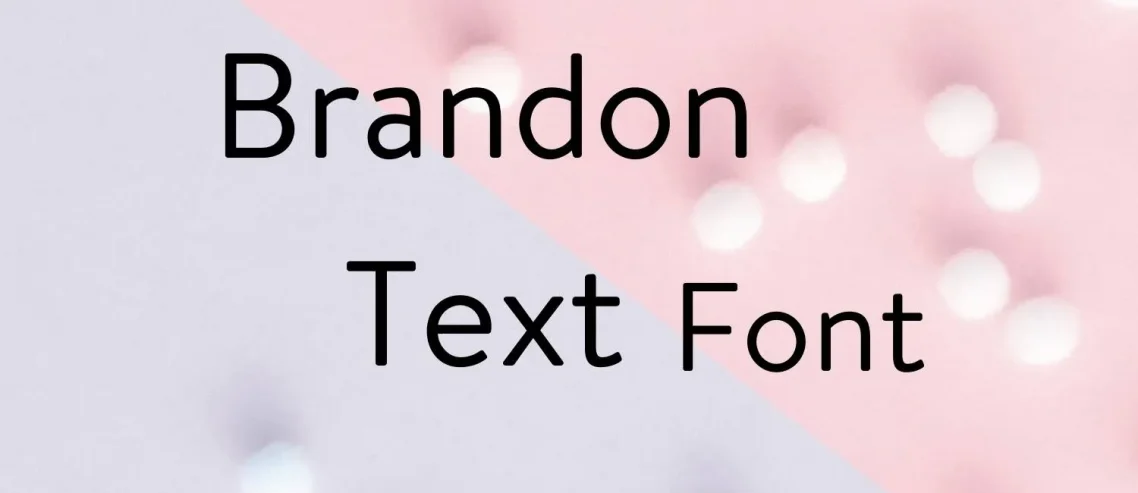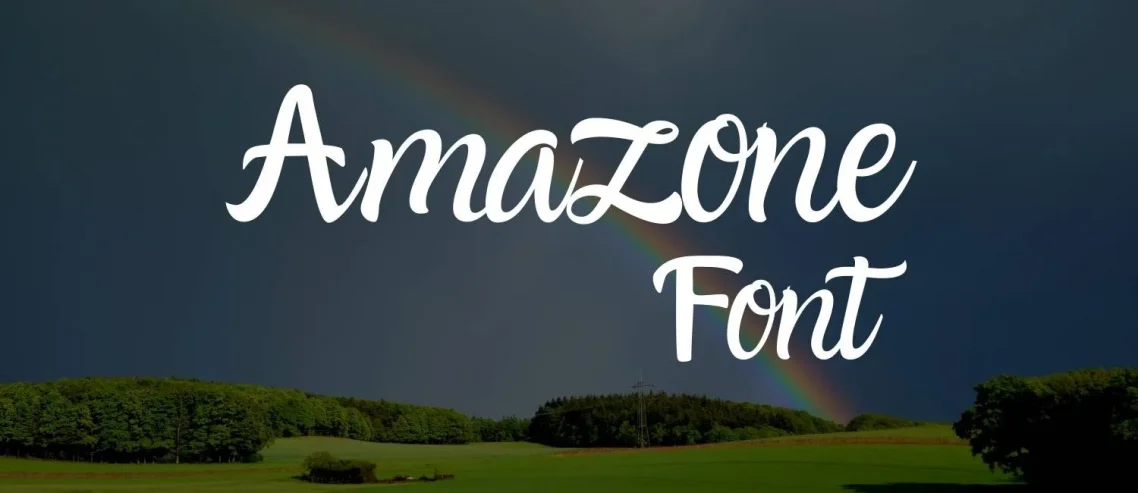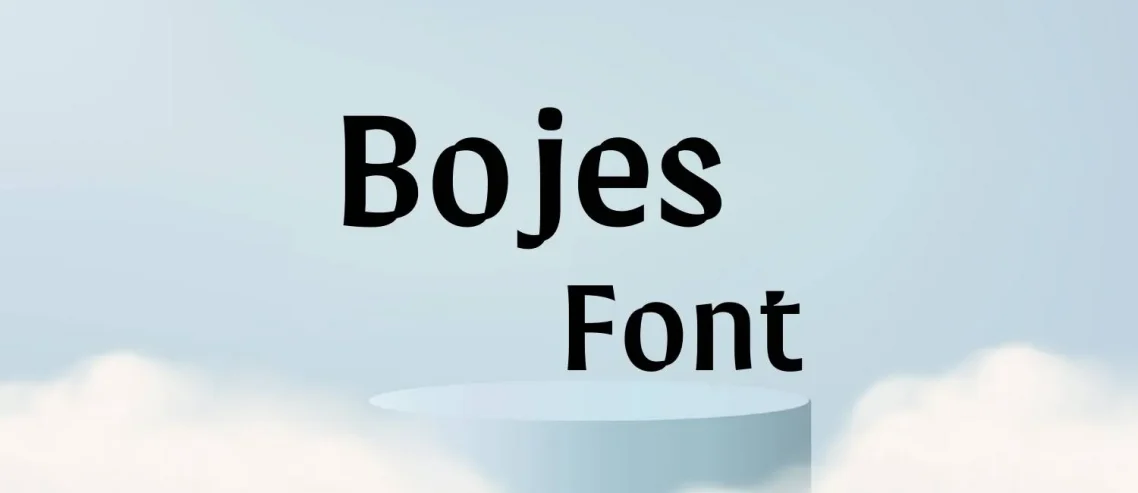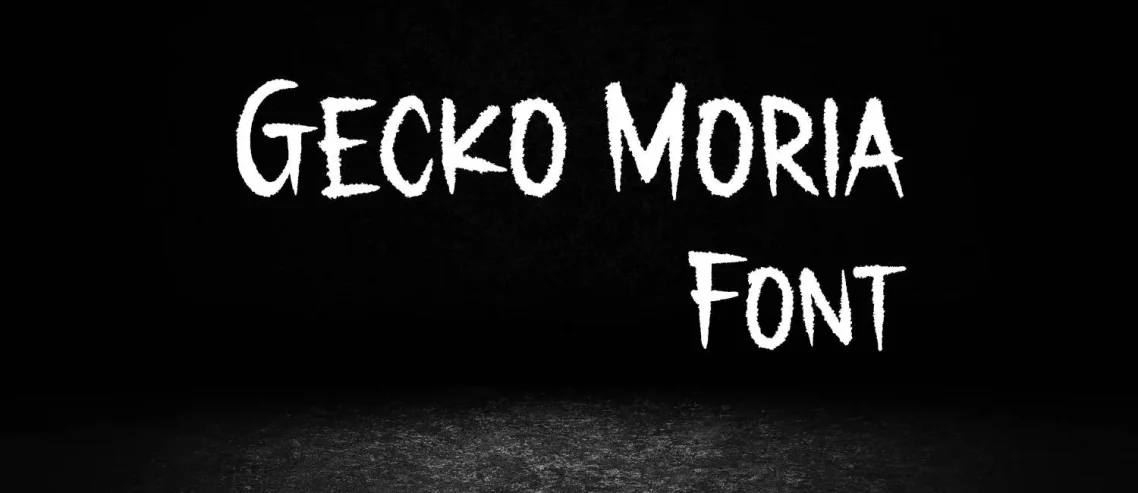
Bojes Font Free Download
Bojes Font is a display typeface designed by Indonesian type designer Adhitya Wardhana. The design is based on the lettering of 19th-century French type designer Bojes, with minor modifications. Bojes Typeface was created with the intention of being used for body text in books and other printed materials. The typeface is available in two weights, …
Supreme Font Free Download
supreme Font is a popular typeface that was created by Roger Excoffon. This Font was first released in 2013 and has since been used by many major brands and publications. This Font is available in both regular and bold weights, and it includes support for Latin, Cyrillic, and Greek character sets. If you’re looking for …
Gecko Moria Font Free Download
Gecko Moria Font is a typeface that was designed by Toshi Omagari in 2014. It is a display typeface with a funky, fun, and friendly personality. The Gecko Moria Typeface family includes regular, bold, and italic styles. The Gecko Moria Typeface was inspired by the work of Japanese calligrapher Shodo Morita. The name Gecko Moria …
Brandon Text Font Free Download
Brandon Text Font was created by Hannes Von Dohren in 2009. It is a sans serif typeface with a strong structure. This Font is a great choice for graphic and web design, print, and packaging. It is a sans serif typeface with a strong structure. You can easily compare this font with the Monopoly Font. …
Amazone Font Free Download
Amazone Font is a script typeface designed by French type designer Jean Francois Porchez. The Amazone family includes 12 styles: six weights (light, regular, medium, bold, black, and extra black) with corresponding oblique versions. It was released in 2010 through the Font Bureau foundry. This font has a very unique and stylish look that makes …
Bell Bottom Laser Font Free Download
Bell Bottom Laser font was created in the early 1970s by computer scientist and graphic designer Roger Dean. The font is characterized by its unique, flared letters. It was one of the first fonts to be created using a computer, and it quickly became popular for its distinctiveness. Bell Bottom Laser typeface was used extensively …